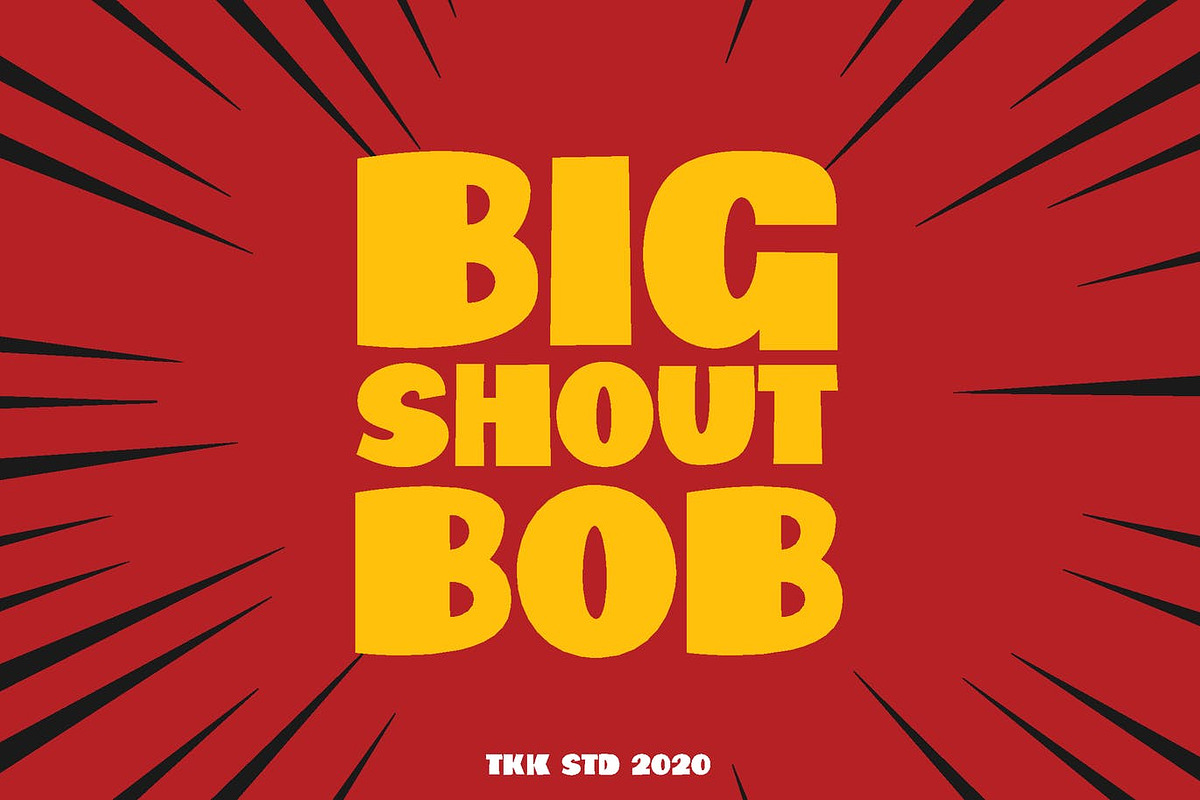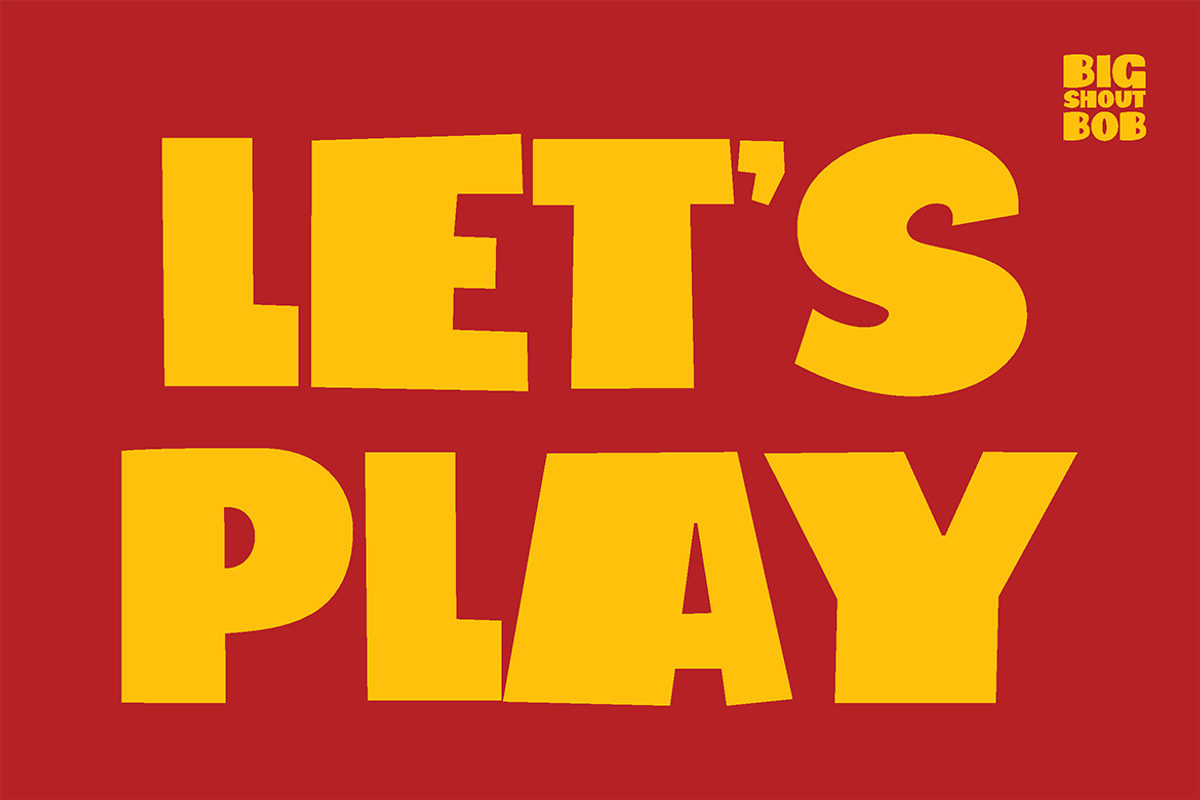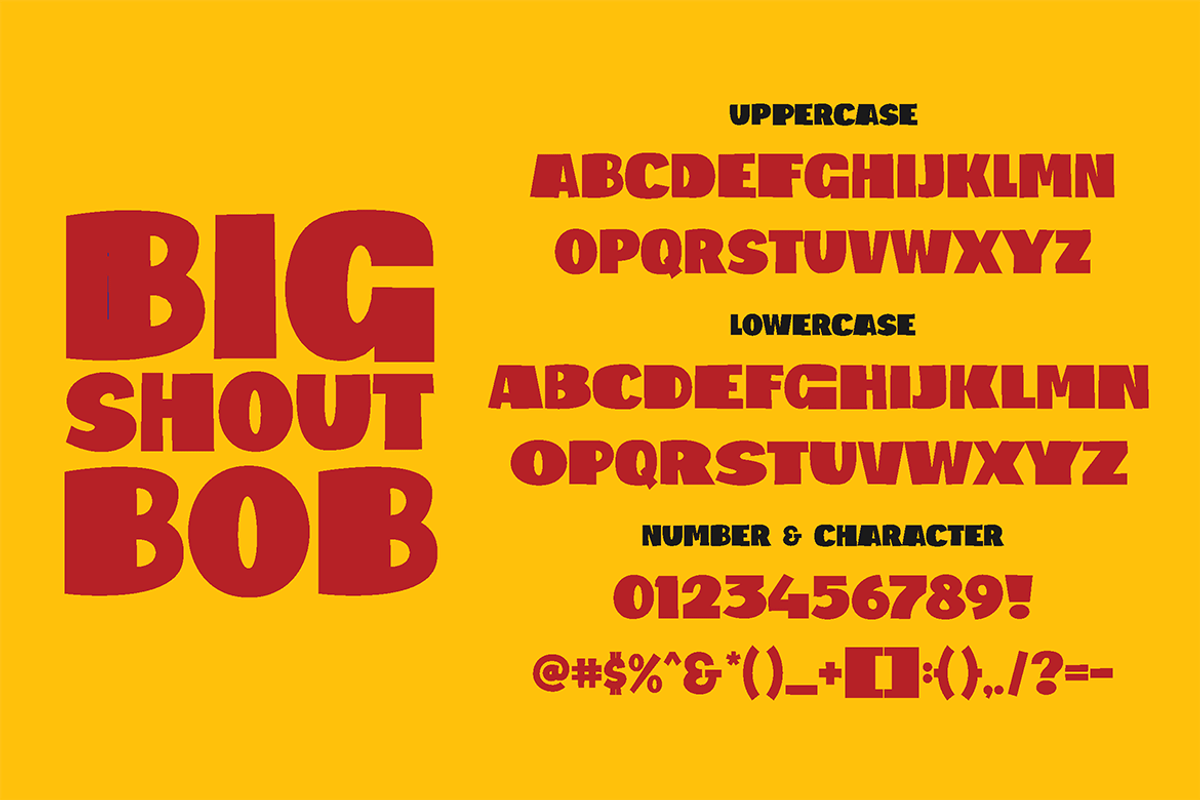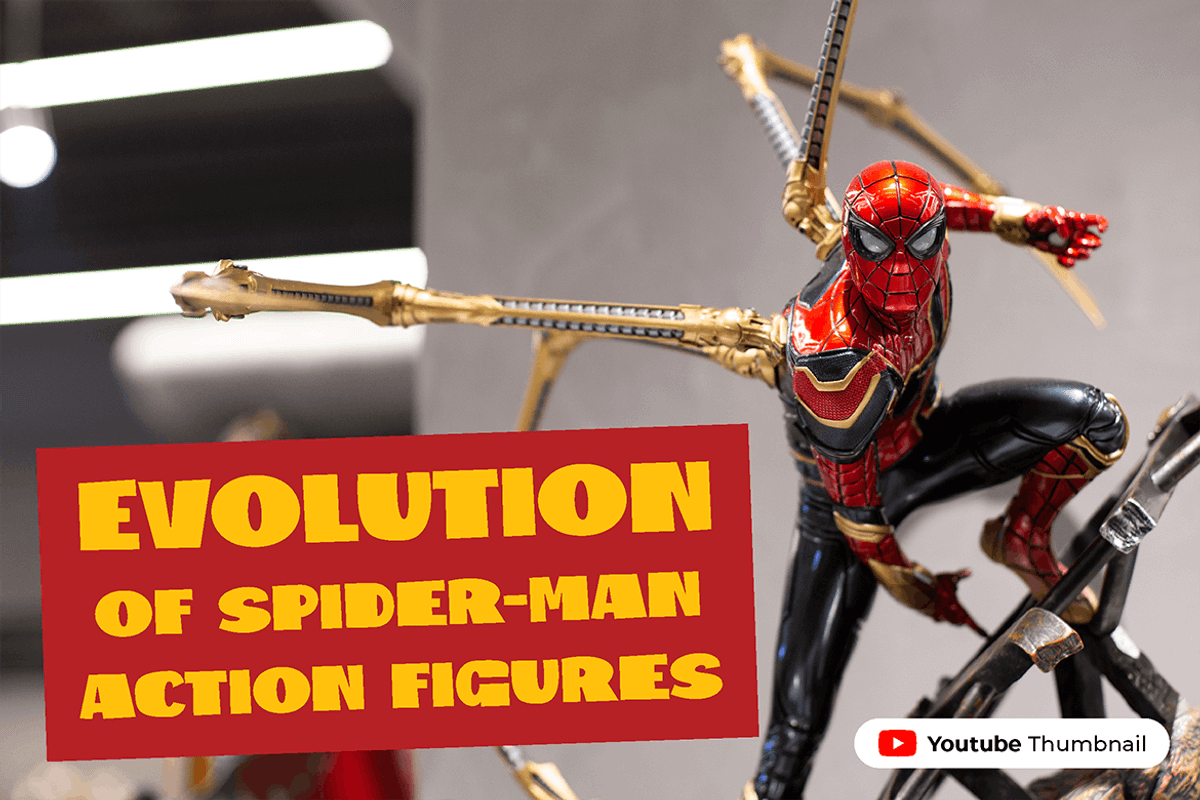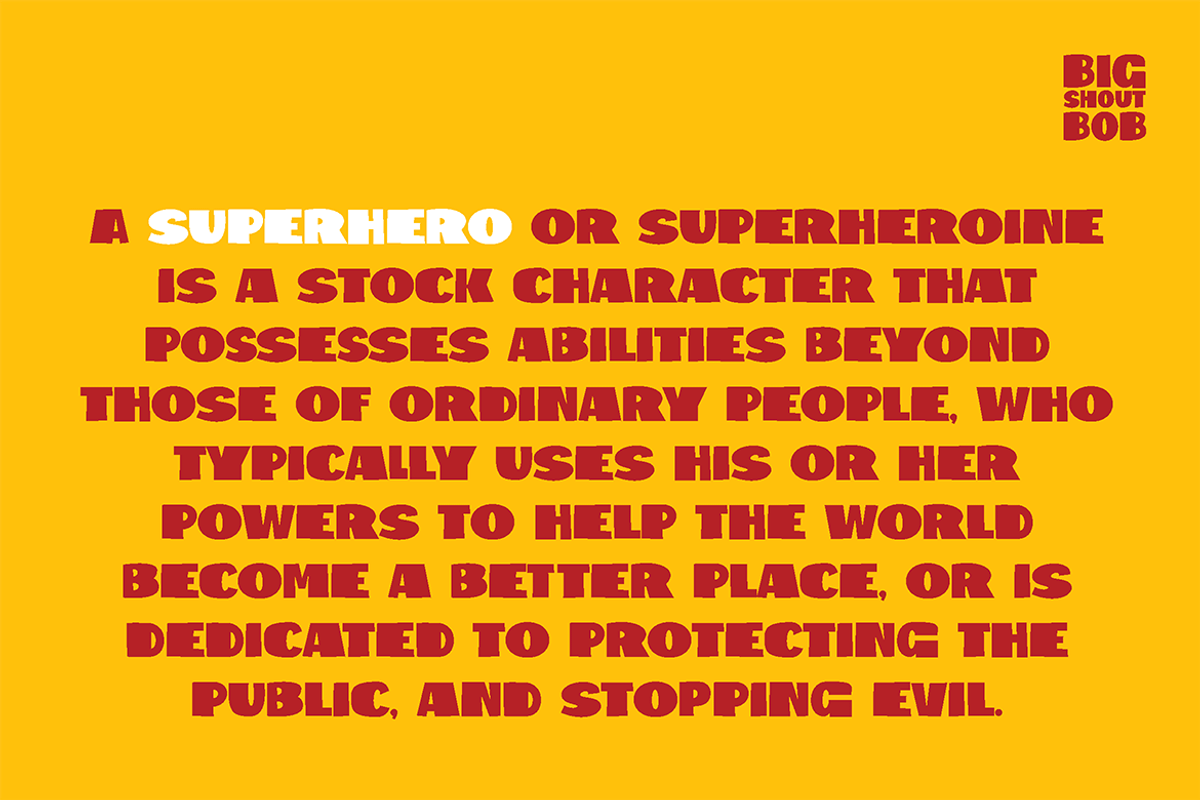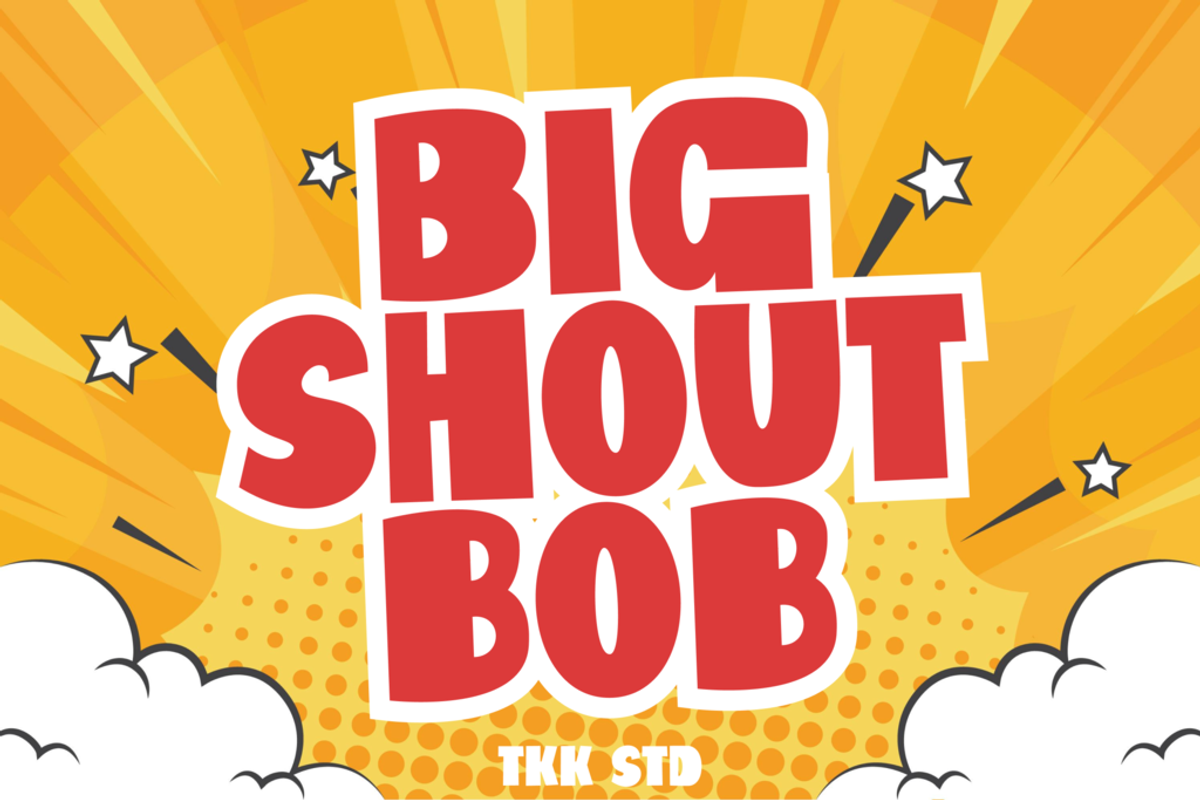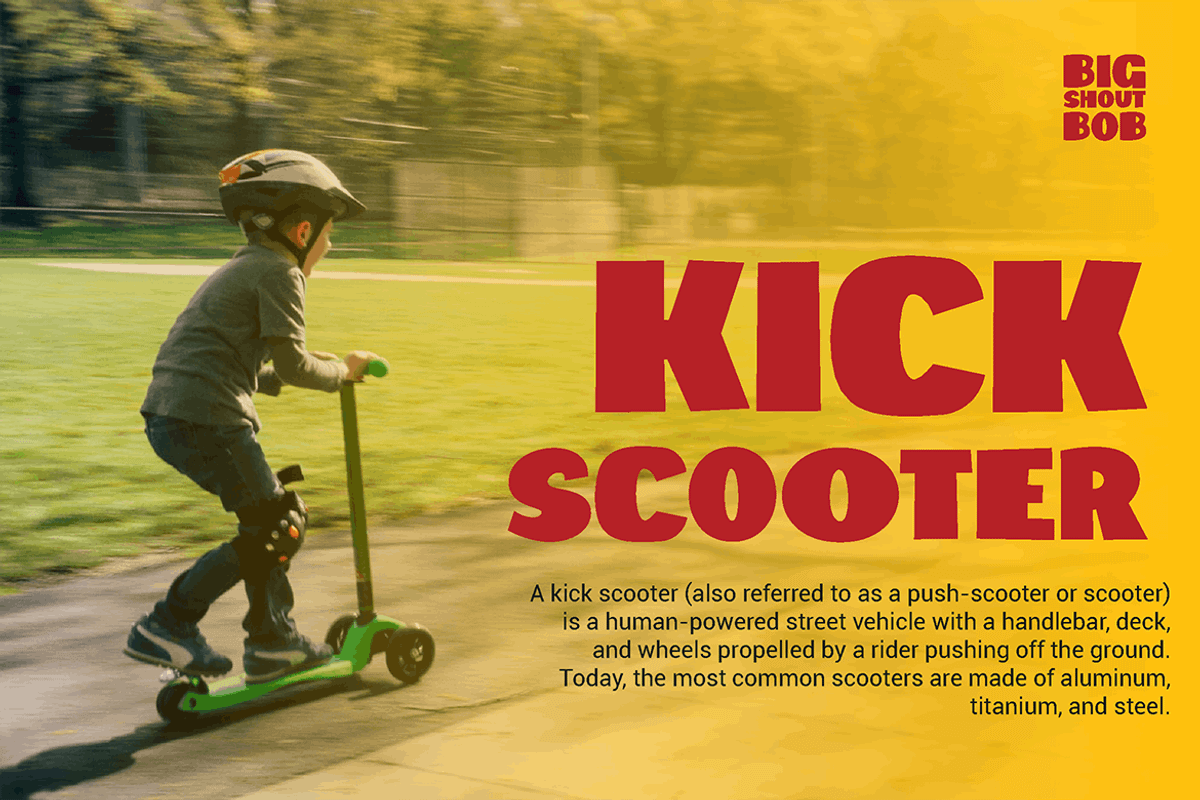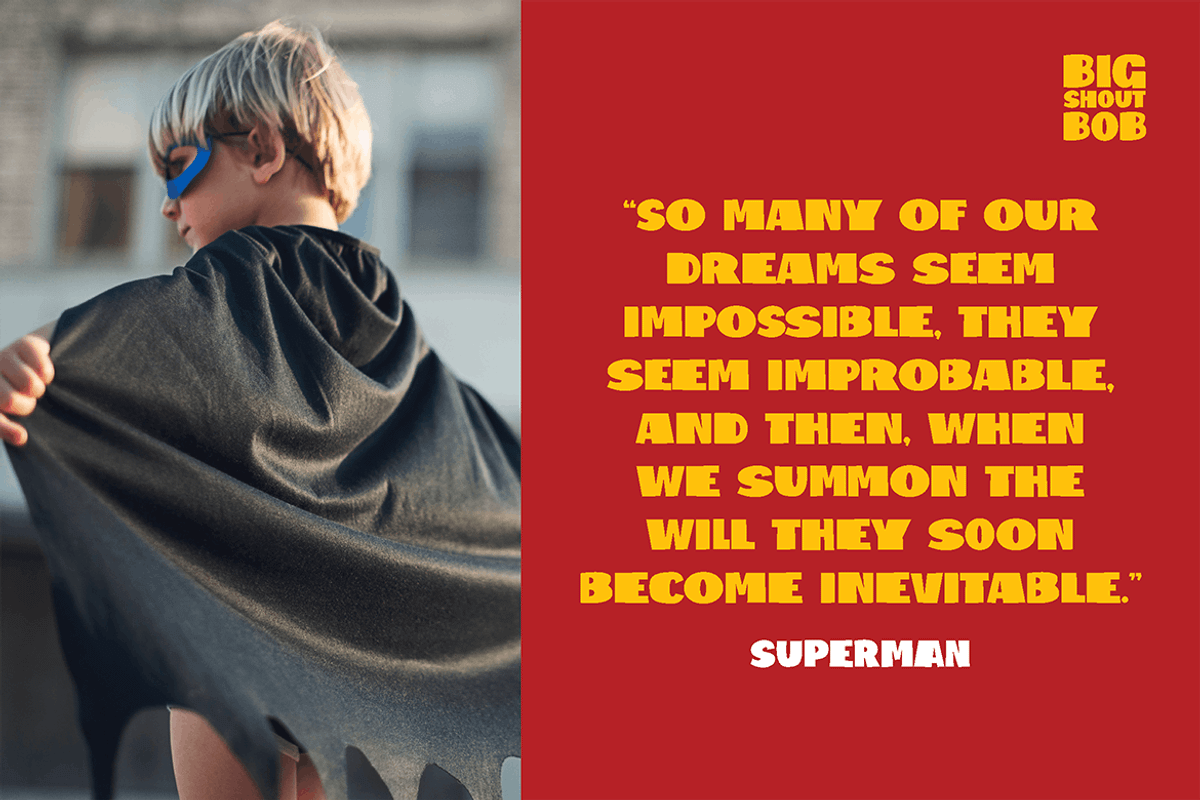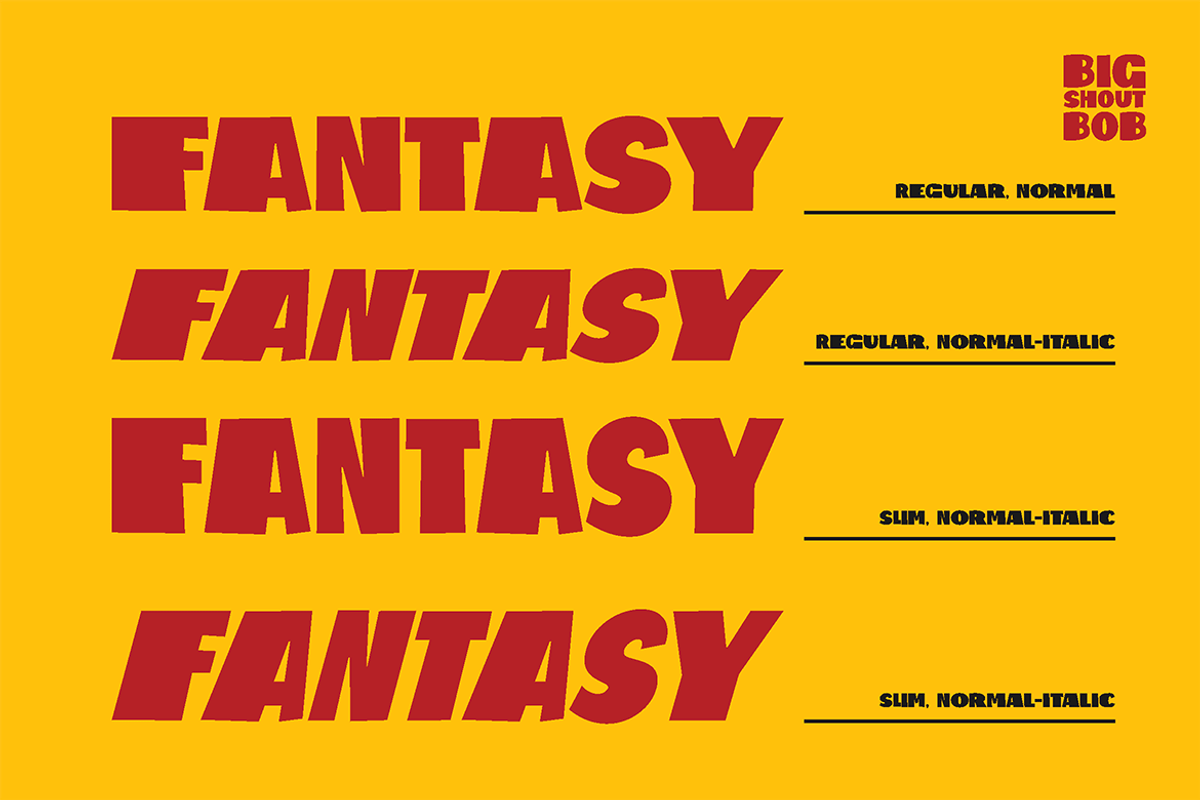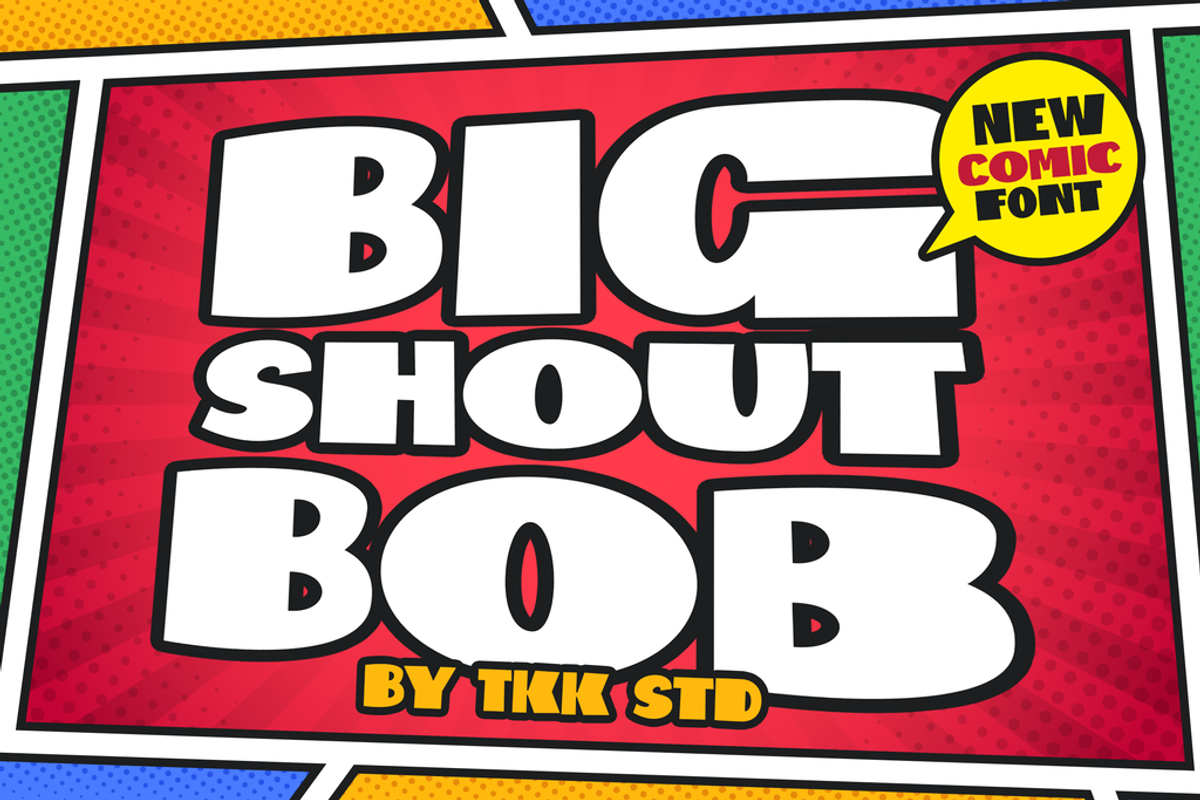
Big Shout Bob - Block Font
Big Shout Bob block font, It's an all caps with slight differences between upper and lowercase. Both give your project an amazing attention grabber.
Bold, Black, and full of energy.
Suit perfectly for Online Games, poster, movie title, fast food menu, magazine, youtube covers, youtube thumbnails, social media page covers and so on...